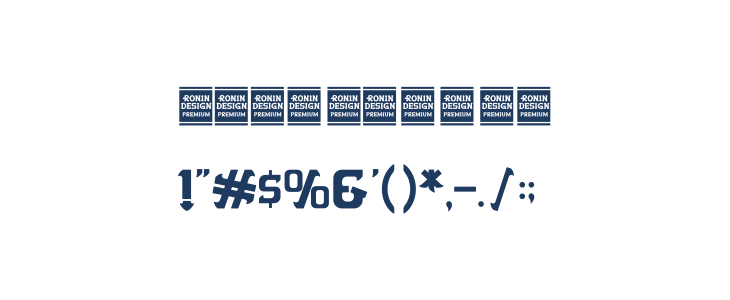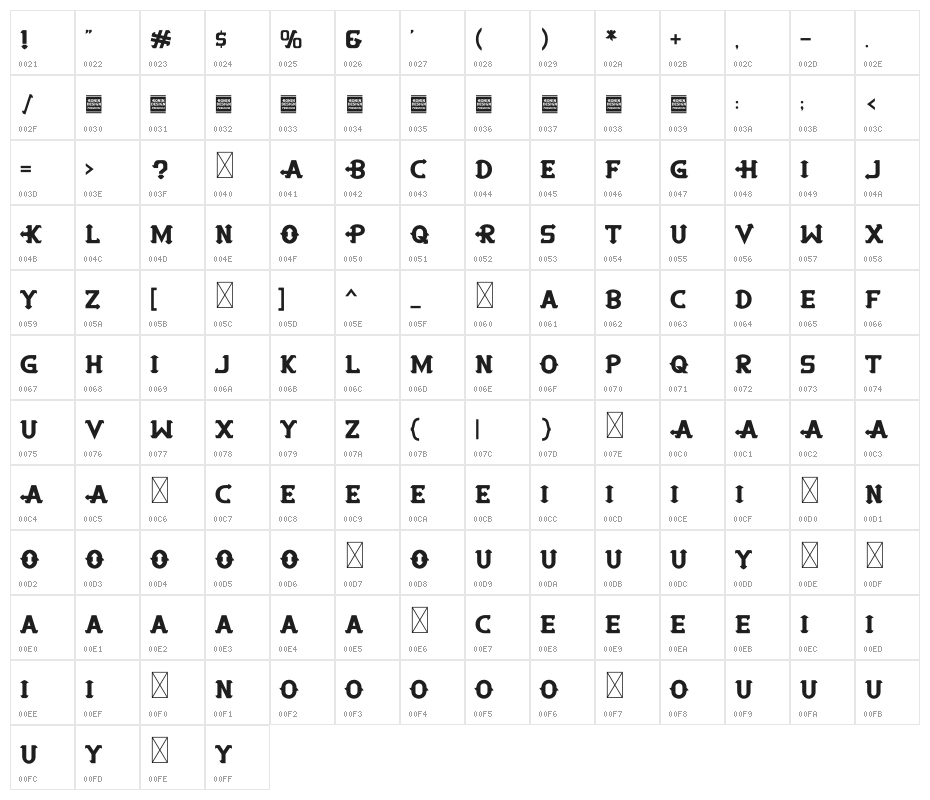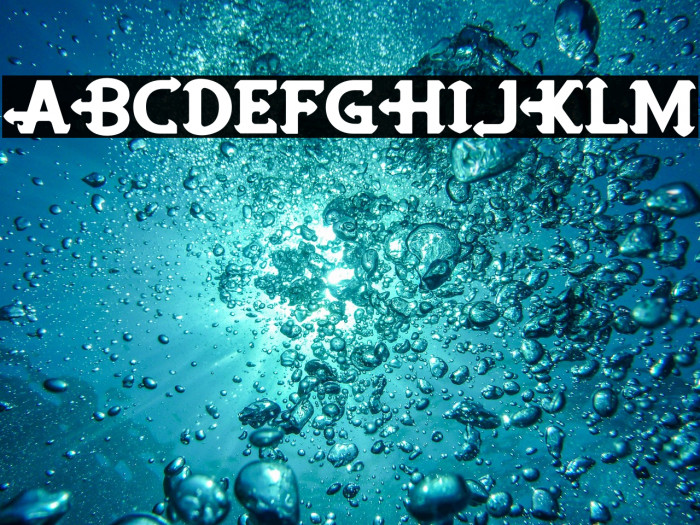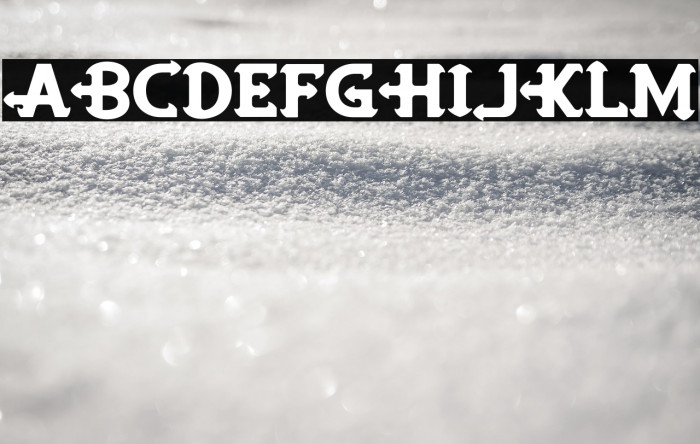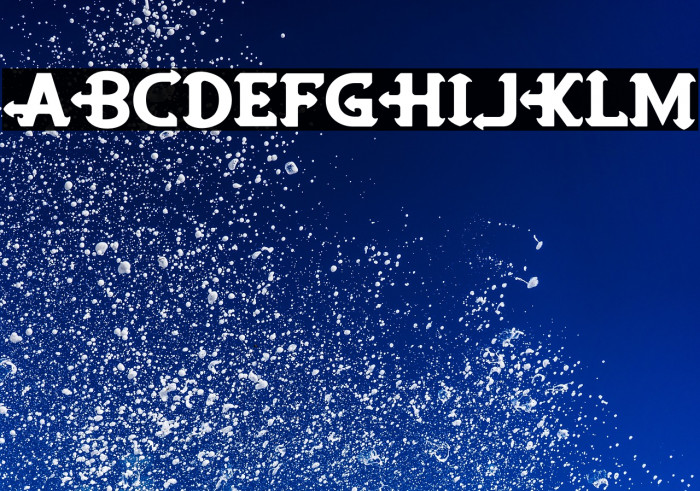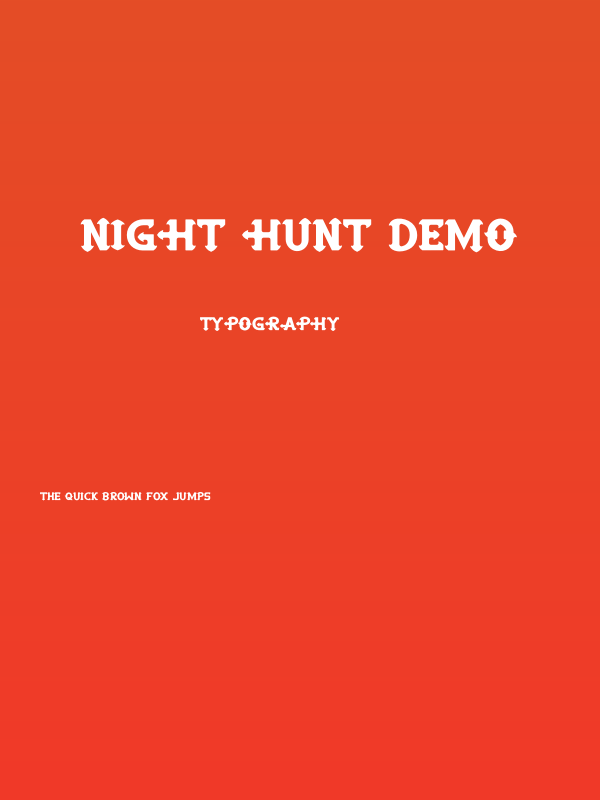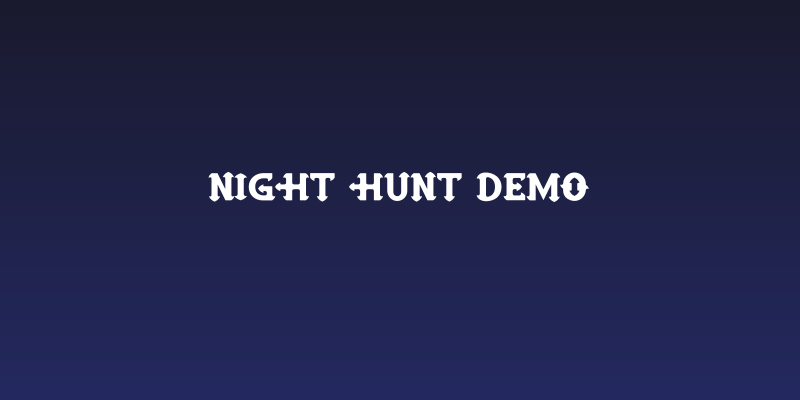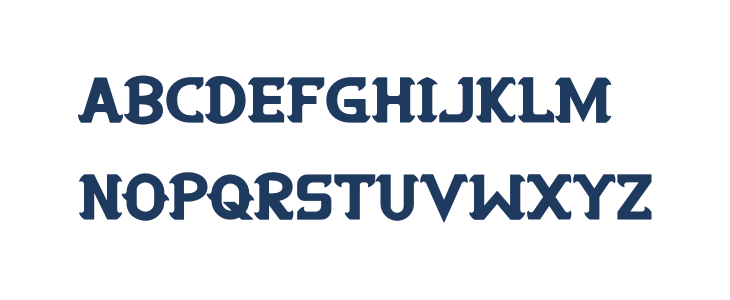
Night Hunt Demo Font
Night Hunt Demo Description
This font features a bold and striking design with sharp, angular serifs and a strong presence. The uppercase letters are particularly distinctive, with a unique geometric flair that adds a sense of modernity and edge. The lowercase letters maintain this boldness, ensuring consistency throughout the typeface. The numbers and special characters are equally bold, making them stand out in any design. This font is ideal for projects that require a strong visual impact, such as branding, posters, or headlines. Its decorative elements make it suitable for creative and artistic applications.
| Proposed Projects | Ideal for branding, posters, headlines, and creative design projects. |